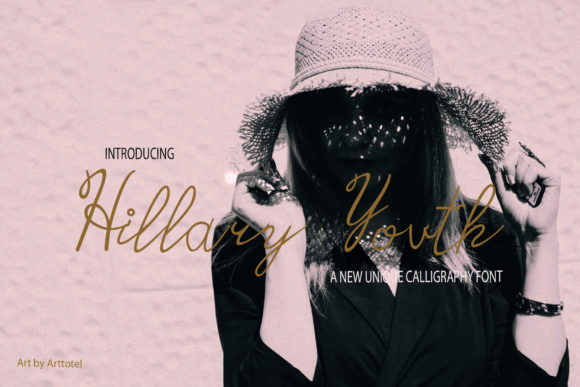
Hillary Youth Font
Introducing Hillary Youth Font - Embrace the Timeless Beauty of Script for Your Creative Endeavors
In the realm of artistic expression, fonts hold an extraordinary power to shape emotions, convey messages, and create unforgettable visual experiences. Hillary Youth Font, a captivating script font from the Sunflower family, emerges as a true masterpiece, inviting you to explore the profound depths of its elegance and charm. Exquisitely crafted with meticulous precision, Hillary Youth Font is a love letter to the art of handwritten typography, capturing the essence of authenticity and timeless beauty.
With its graceful curves and flowing lines, Hillary Youth Font transcends the boundaries of ordinary typefaces, enchanting your projects with a touch of natural allure. Its unique design embodies the essence of spontaneity and fluidity, as though each letter were a stroke of inspiration, a dance of ink across paper. Whether you're a seasoned designer, a passionate photographer, or an aspiring entrepreneur, Hillary Youth Font is your ultimate companion, ready to transform your creative visions into stunning realities.
Unleash the endless possibilities of Hillary Youth Font and witness the metamorphosis of your designs. Adorn your branding with sophistication, elevate your photography with a touch of whimsy, craft enchanting invitations that leave a lasting impression, and make your quotes and watermarks radiate with individuality. Let Hillary Youth Font breathe life into your advertisements, product designs, and packaging, capturing the attention of your audience with its undeniable allure.
Experience the transformative power of Hillary Youth Font and witness how it effortlessly elevates your creative projects, leaving an indelible mark on the hearts and minds of your audience. Embark on a journey of self-expression, creativity, and visual delight with Hillary Youth Font, your trusted companion in the realm of digital art. Embrace the beauty, elegance, and versatility of Hillary Youth Font, and let your imagination soar to new heights.